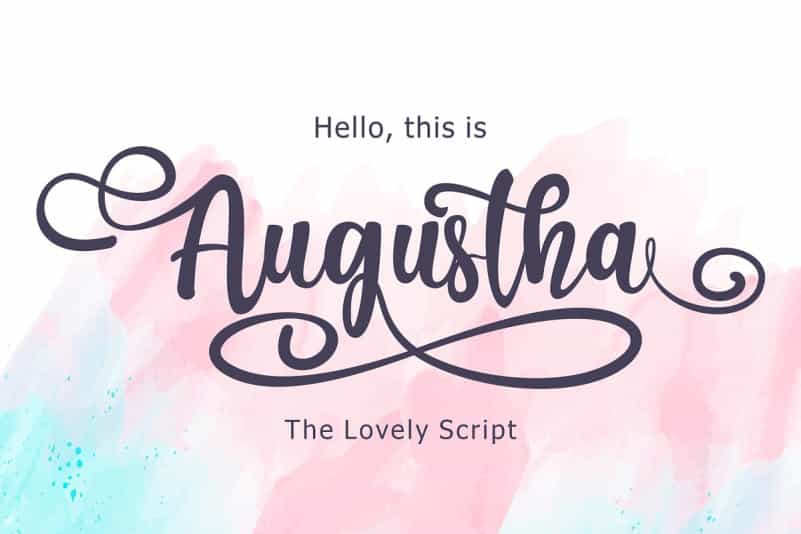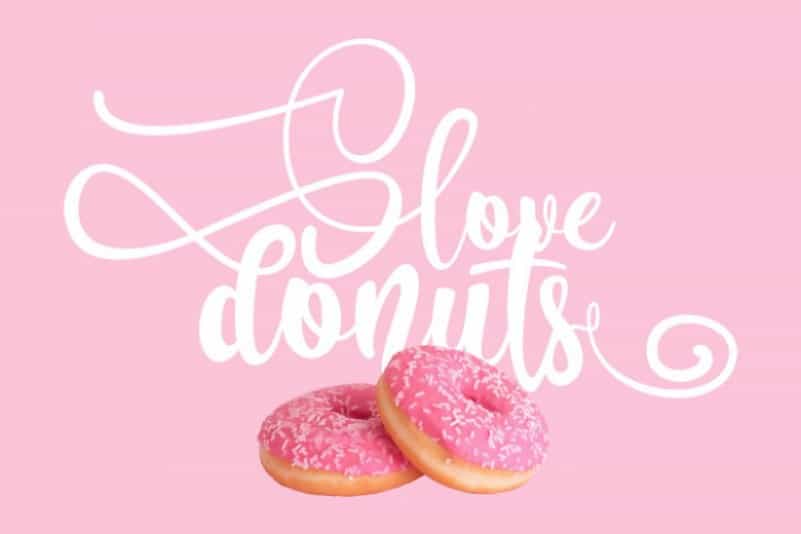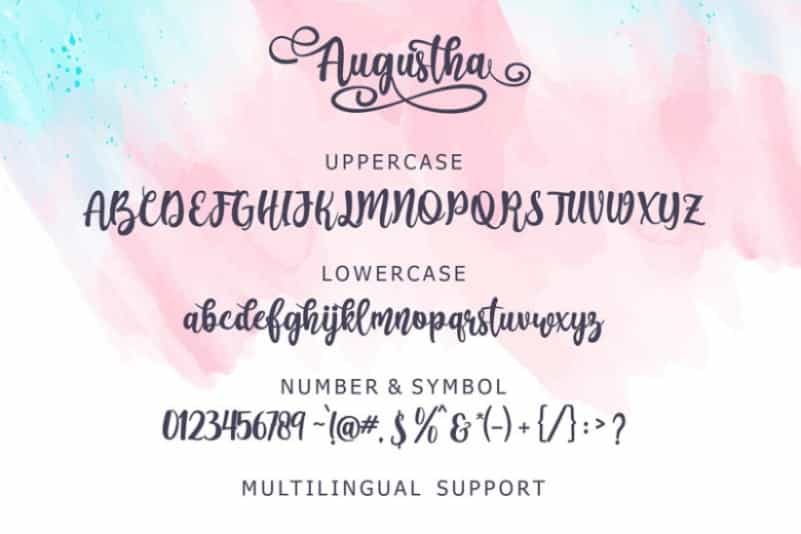
Lets discuss the Augustha font. It’s a calligraphy typeface thats great for all kinds of design needs. Created by the figuree studio this beautiful script font showcases a flair thats perfect, for crafting designs. Whether you’re designing greeting cards, branding assets, business cards, quotes or posters this font will add a touch of elegance to your projects with ease.